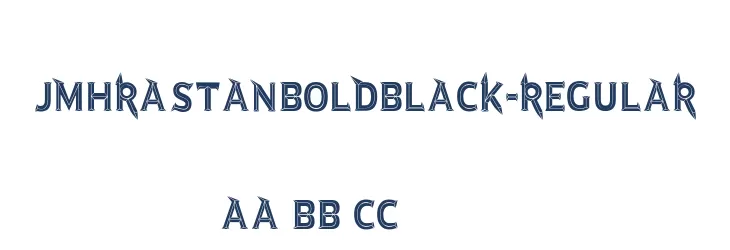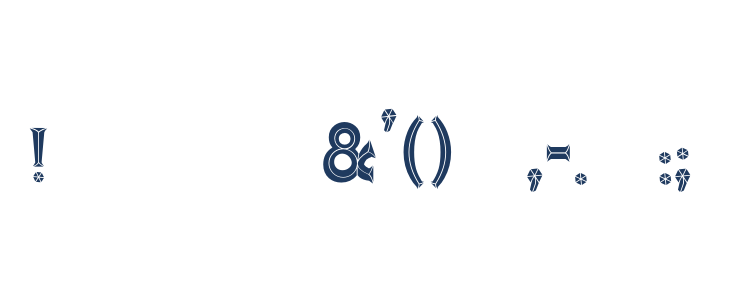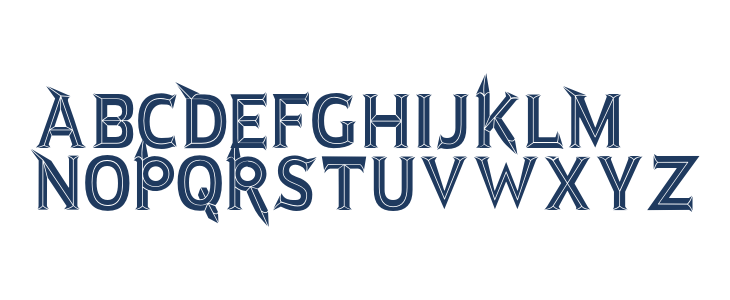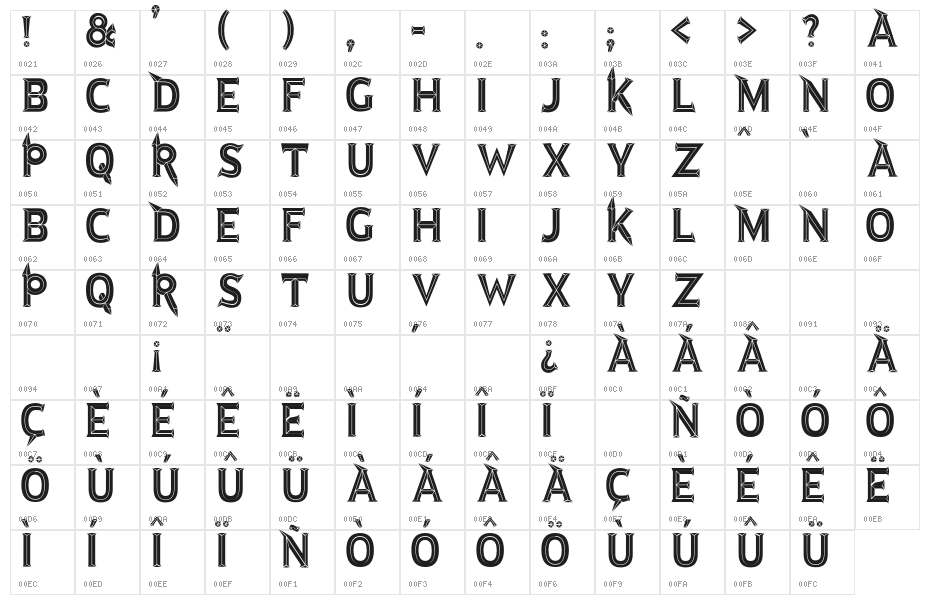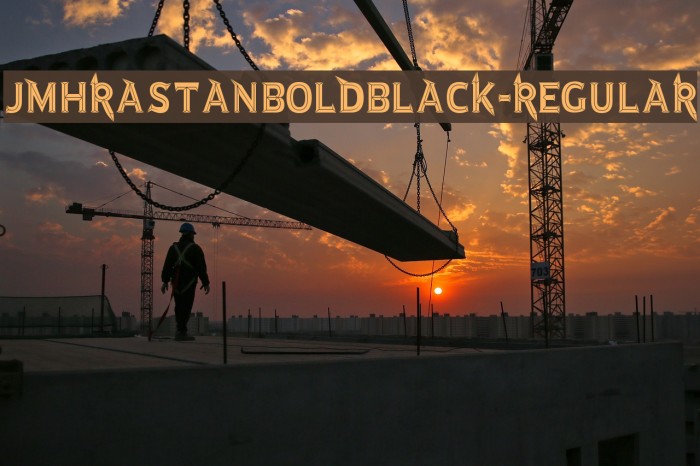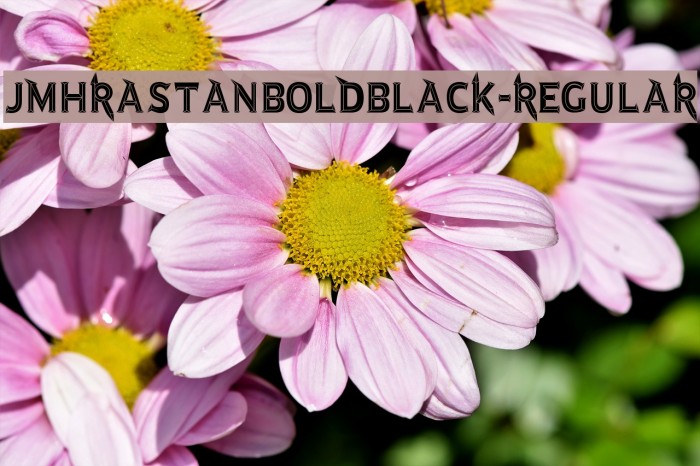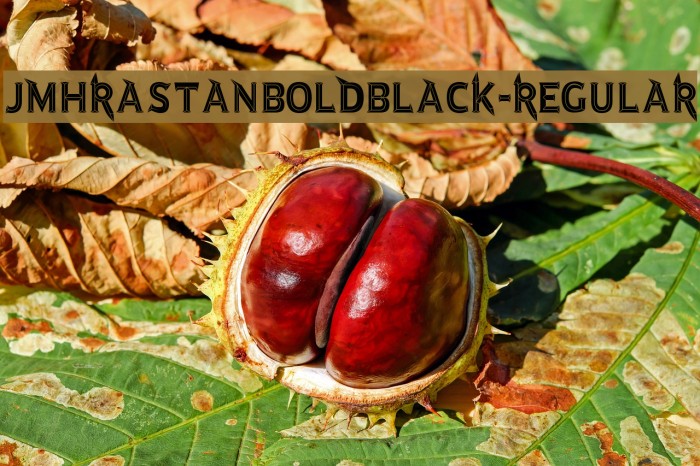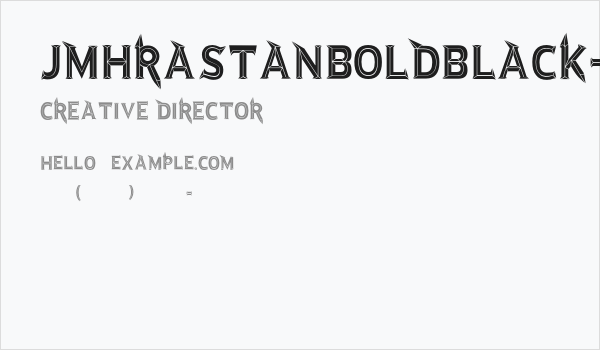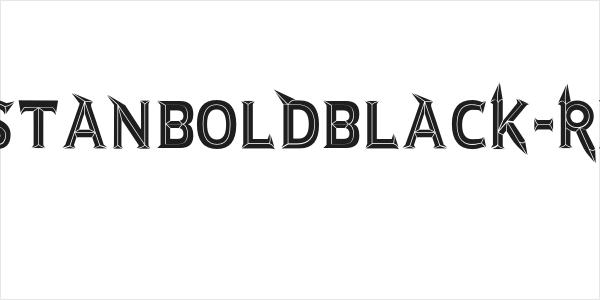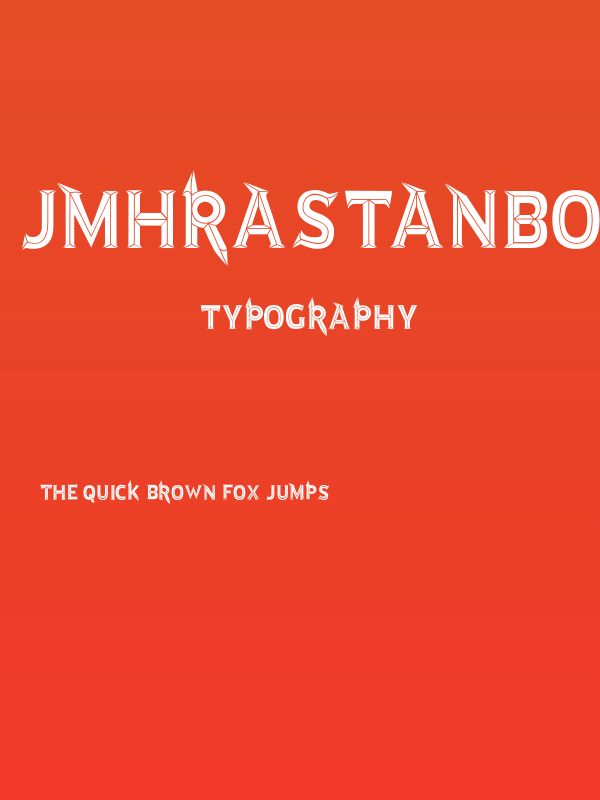
JMHRastanBoldBlack-Regular Font
JMHRastanBoldBlack-Regular Description
This font features a bold and striking design with sharp, angular edges and a three-dimensional effect. The characters are embellished with pointed serifs and intricate details that give it a unique, decorative appearance. The uppercase letters are particularly prominent, with a strong presence that commands attention. The font includes a full set of uppercase letters, numerals, and a selection of special characters, making it versatile for various design needs. Its boldness and decorative elements make it suitable for projects that require a dramatic and impactful visual style.
| Proposed Projects | Ideal for video game titles, posters, logos, and any design requiring a bold, dramatic style. |